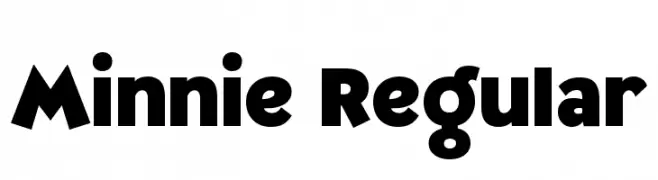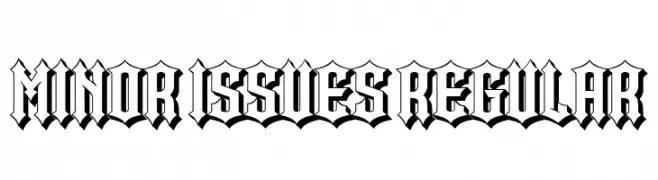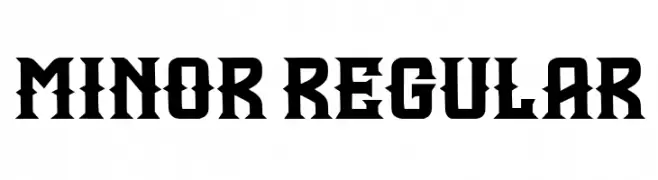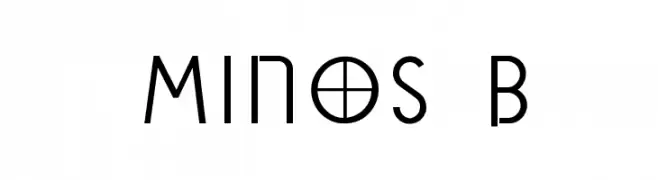
A modern, geometric font with a futuristic and sleek design.
A bold, geometric font with a modern and impactful design.
A bold Gothic font with sharp, angular lines and intricate detailing.
A bold, shadowed font with a three-dimensional, decorative style.
A playful, rounded font with cat icons, perfect for creative and informal projects.
A classic blackletter font with ornate, historical elegance.
A decorative blackletter font with intricate, gothic-inspired details.
A classic blackletter font with intricate, ornate designs and sharp, angular lines.
A decorative blackletter font with ornate, gothic styling.